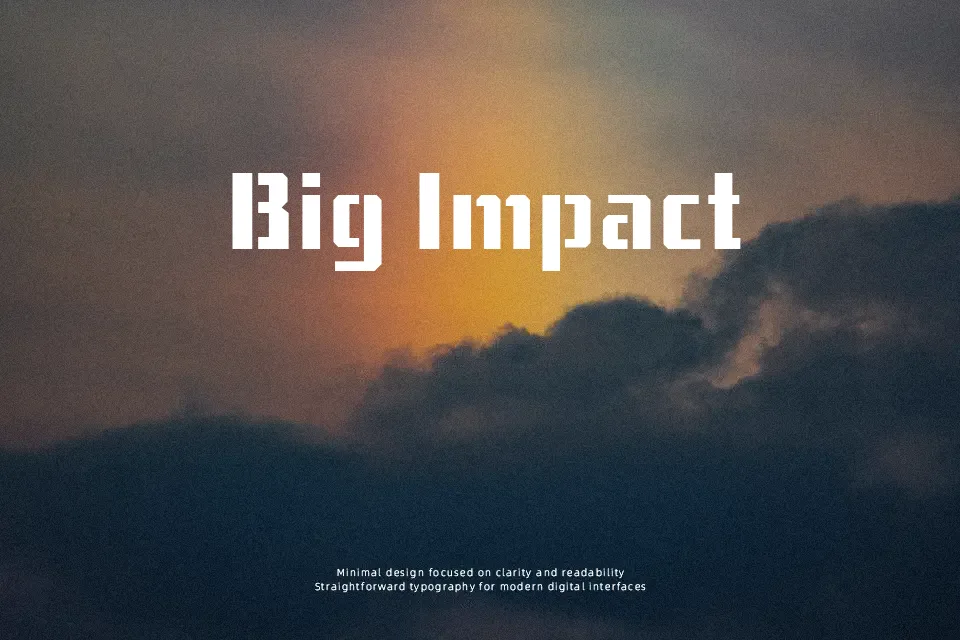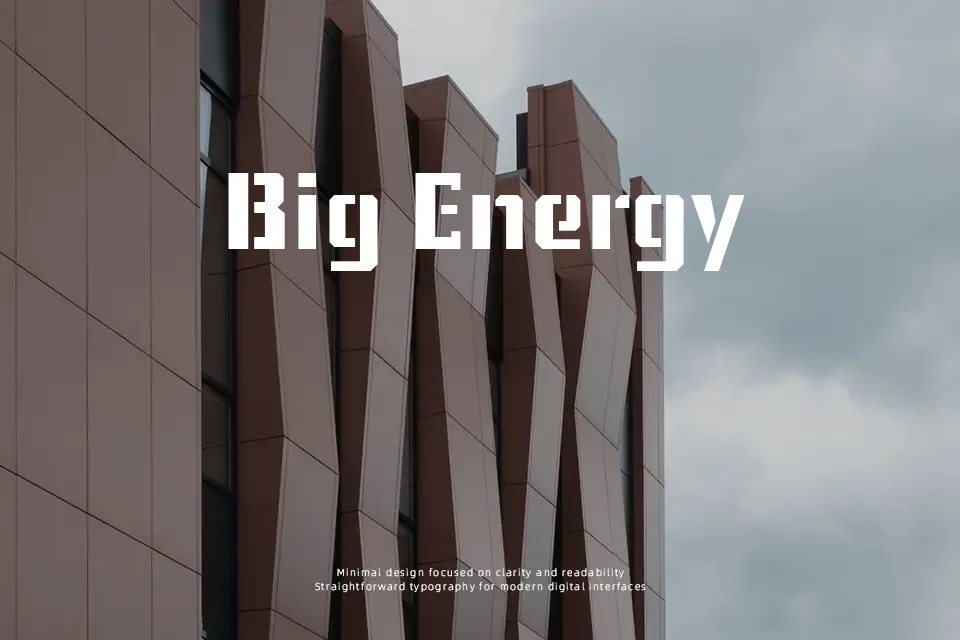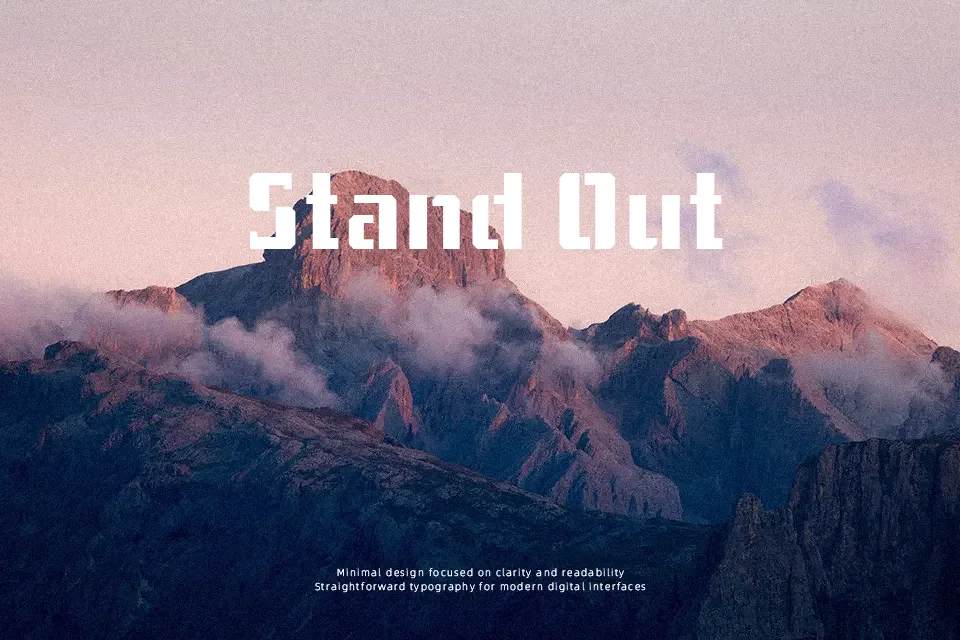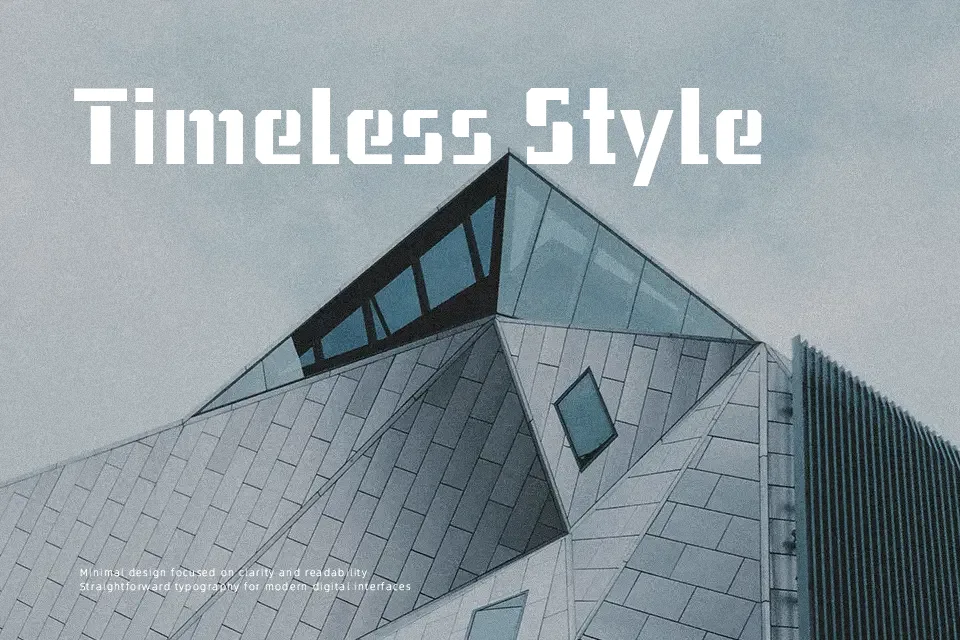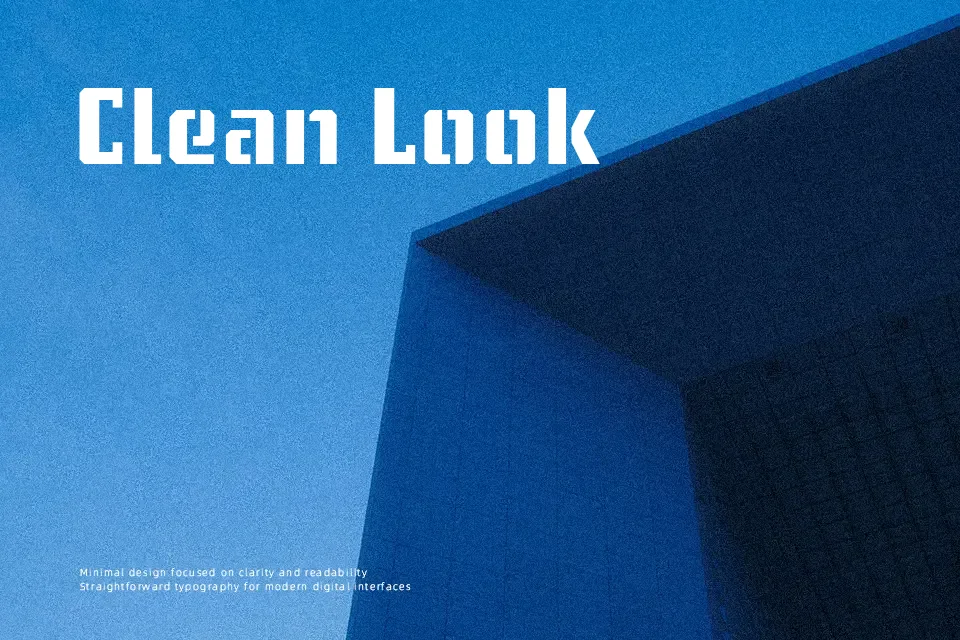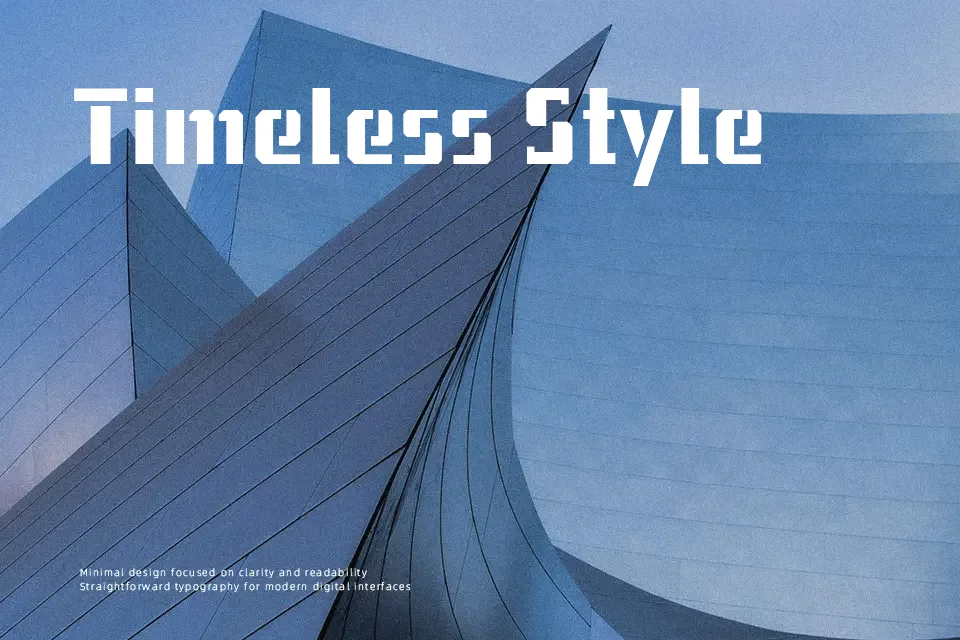
USSR Stencil Font
USSR Stencil Font is a bold display typeface built with rigid rectangular geometry, heavy stroke weights, and precise stencil breaks across its letterforms. The solid, uniform character widths and moderate letter spacing maintain strong visual rhythm and punchy clarity in prominent headline settings. While the typeface commands attention across posters, urban streetwear graphics, and rugged packaging labels, its dense construction and severed strokes significantly reduce comfort during continuous paragraph reading. At smaller display scales, the stencil gaps can also lose definition against background textures. Overall, the design delivers robust utilitarian character best reserved for punchy titles.
Best For: military surplus packaging, screen printed streetwear, propaganda style event posters, industrial shipping crate stencils
Not Ideal For: continuous editorial text, legal documents, small mobile interface captions, dense financial spreadsheets